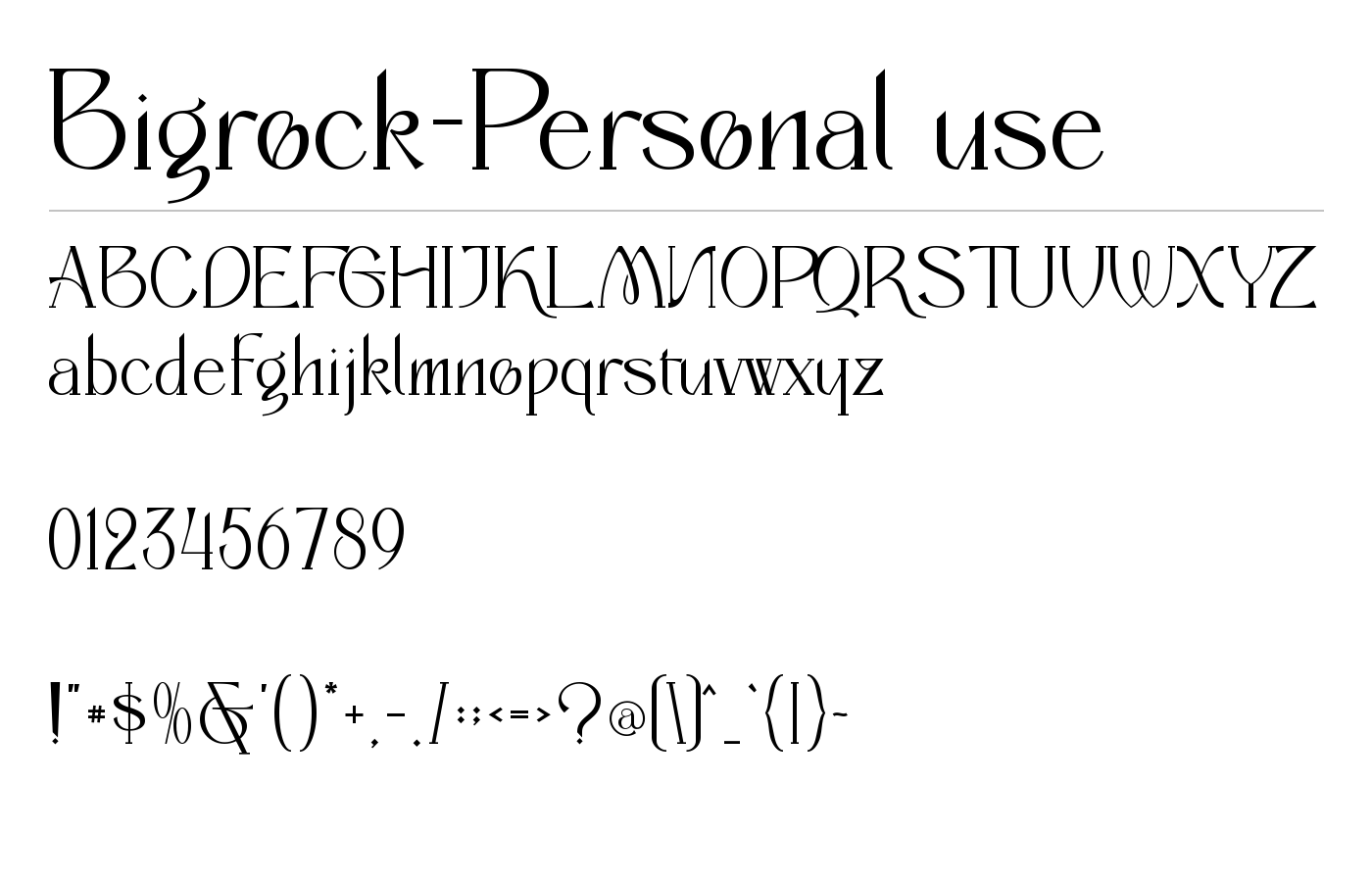
Bigrock-Personal use is a distinctive serif font with an artistic flair, featuring high contrast between thick and thin strokes and elegant, slender letterforms. Its unique, whimsical shapes and fine details give it a sophisticated yet playful character, making it ideal for creative branding, stylish editorial headlines, and elegant packaging where a touch of personality and refinement is desired. This font’s airy spacing and sharp serifs contribute to a modern vintage feel that stands out in upscale and artistic design projects.
Bigrock-Personal use Font
About Bigrock-Personal use Font